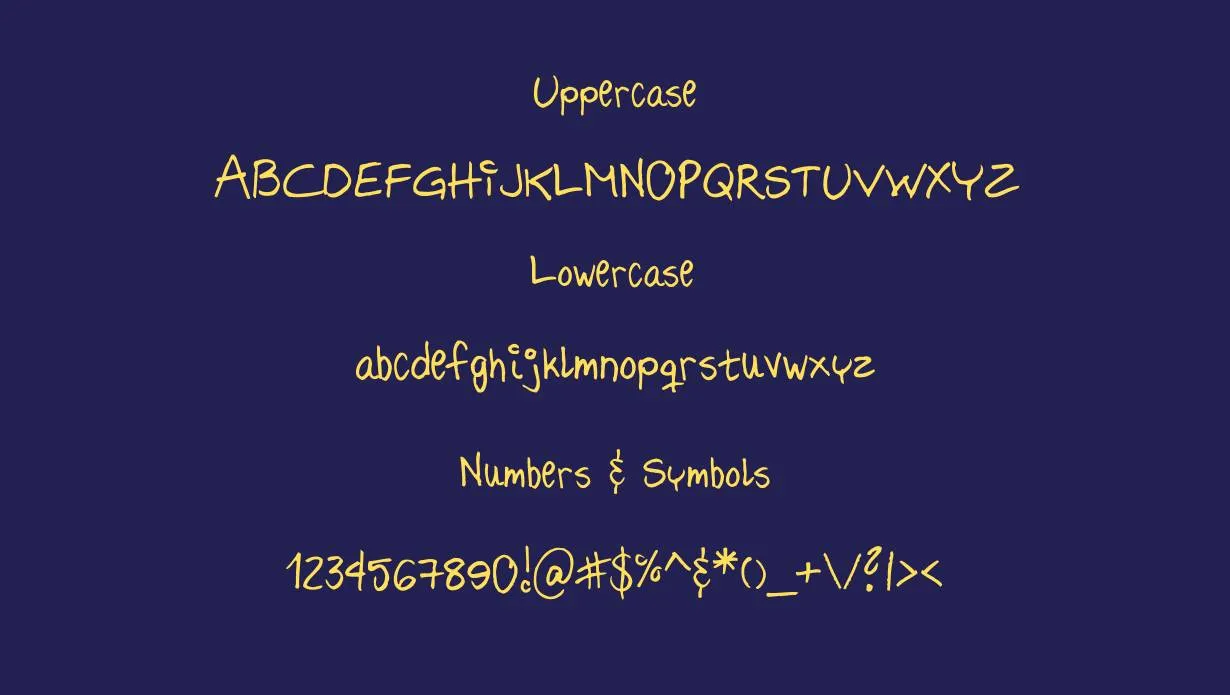
Hilde Sharpie Font is a bold and expressive typeface that captures attention with its bold strokes. With a hand-drawn appearance, this font is perfect for projects that aim for a creative and artistic vibe.
Hilde Sharpie Font adds a touch of individuality and flair to your text, making it stand out with a unique and eye-catching style.